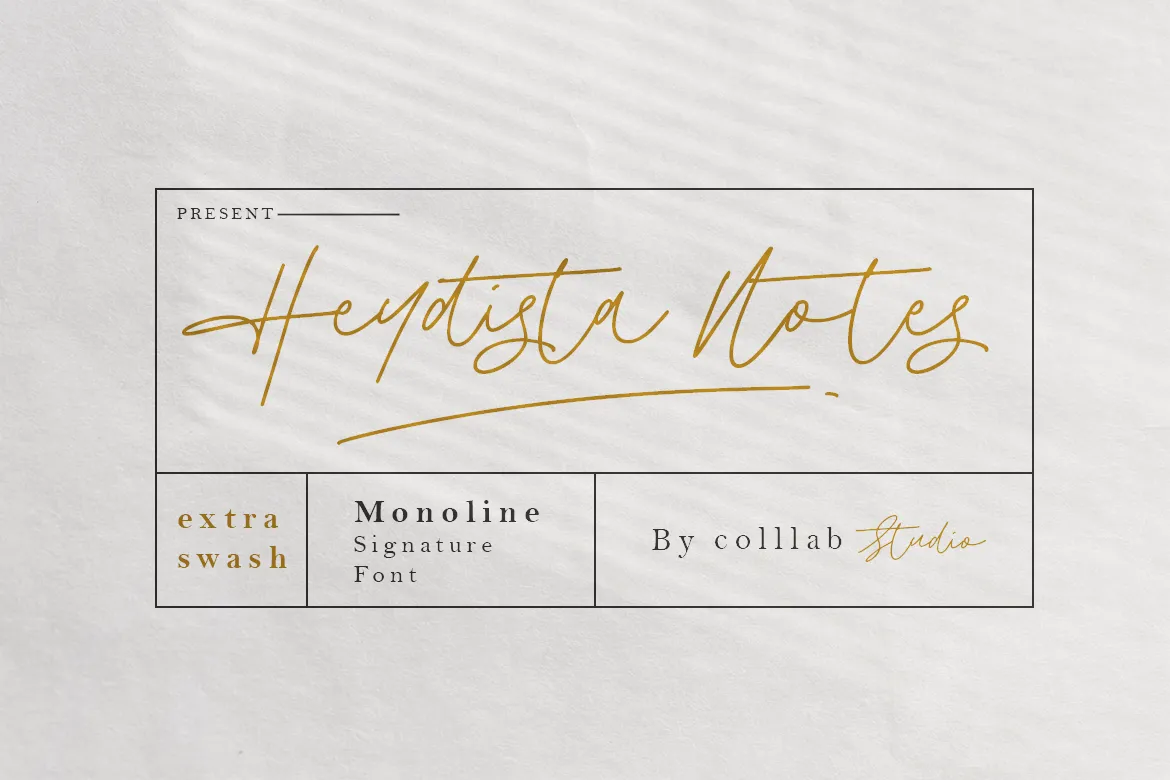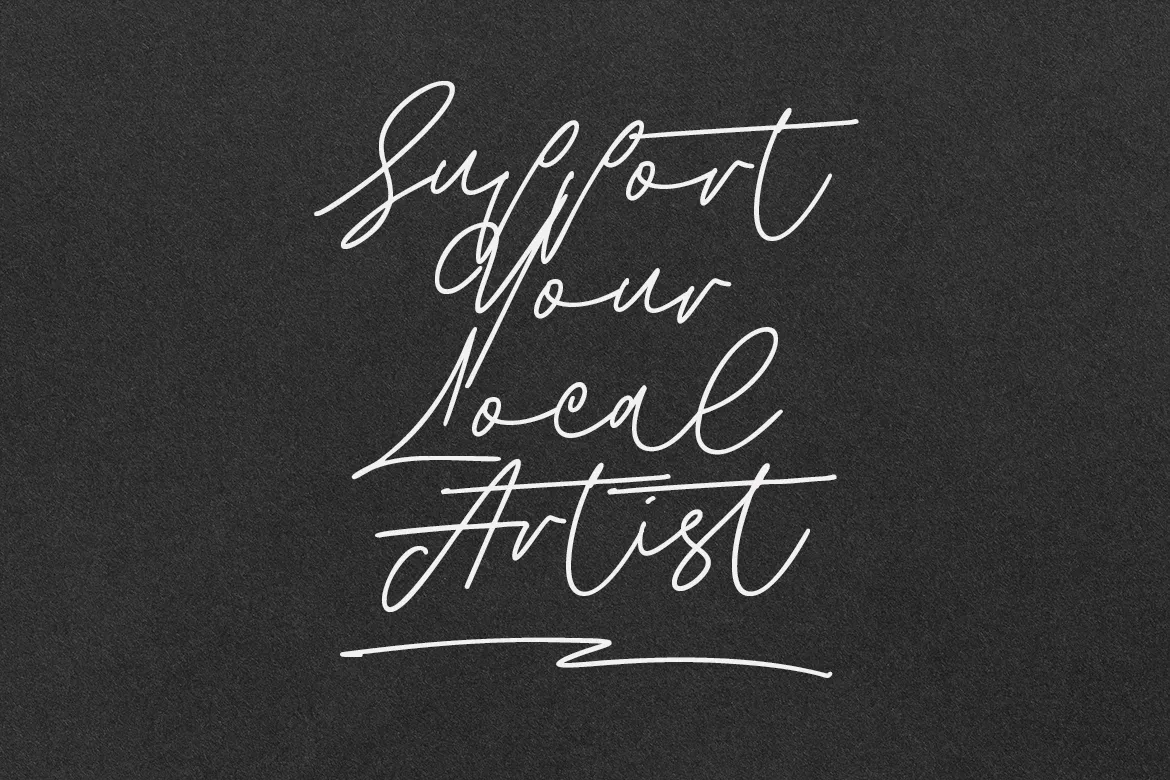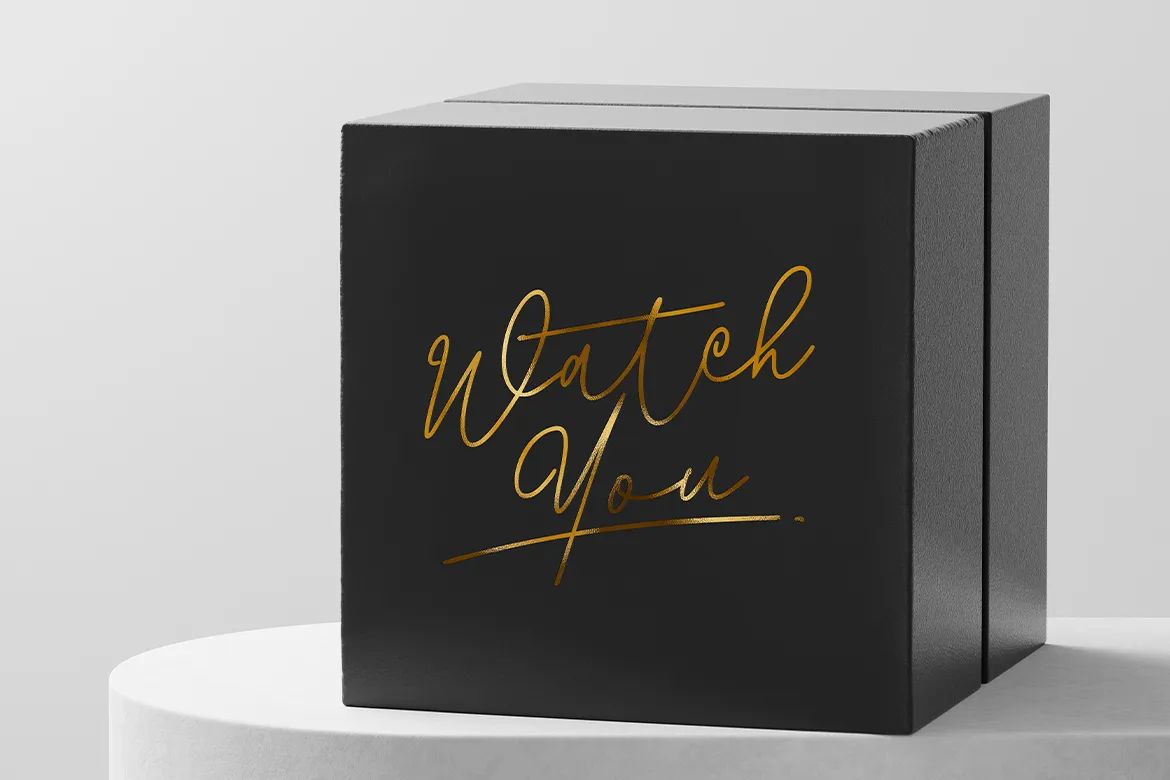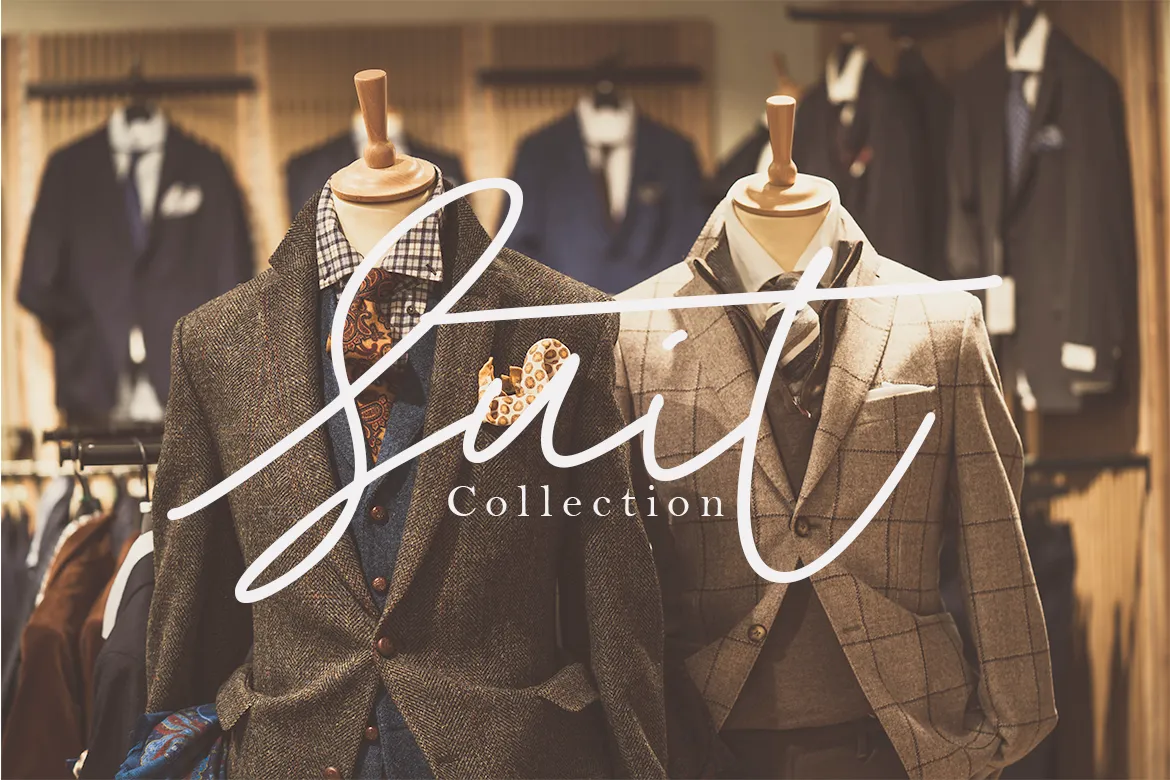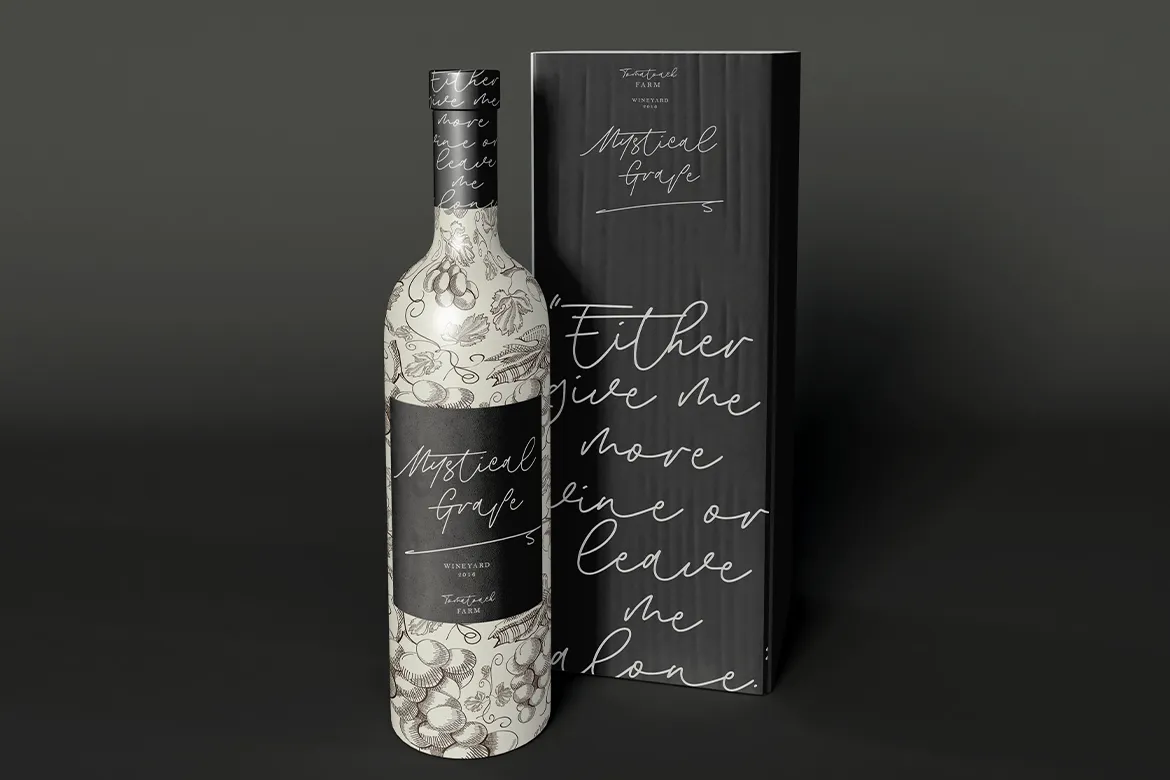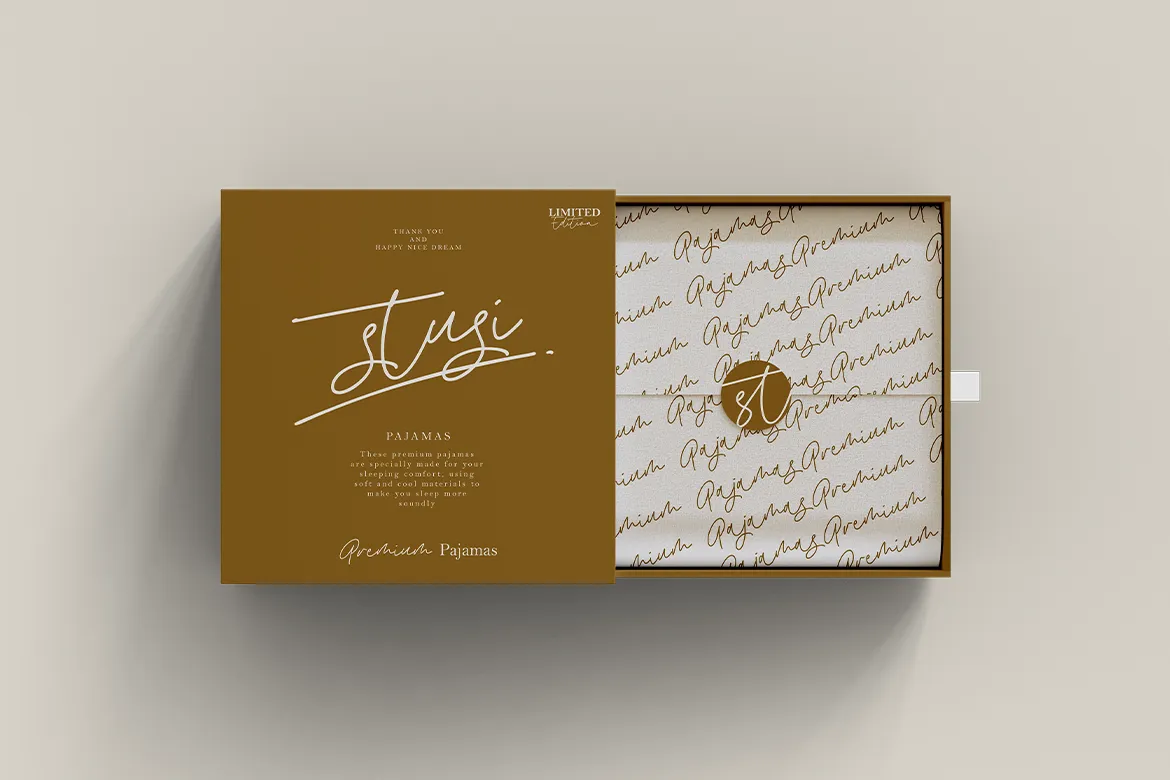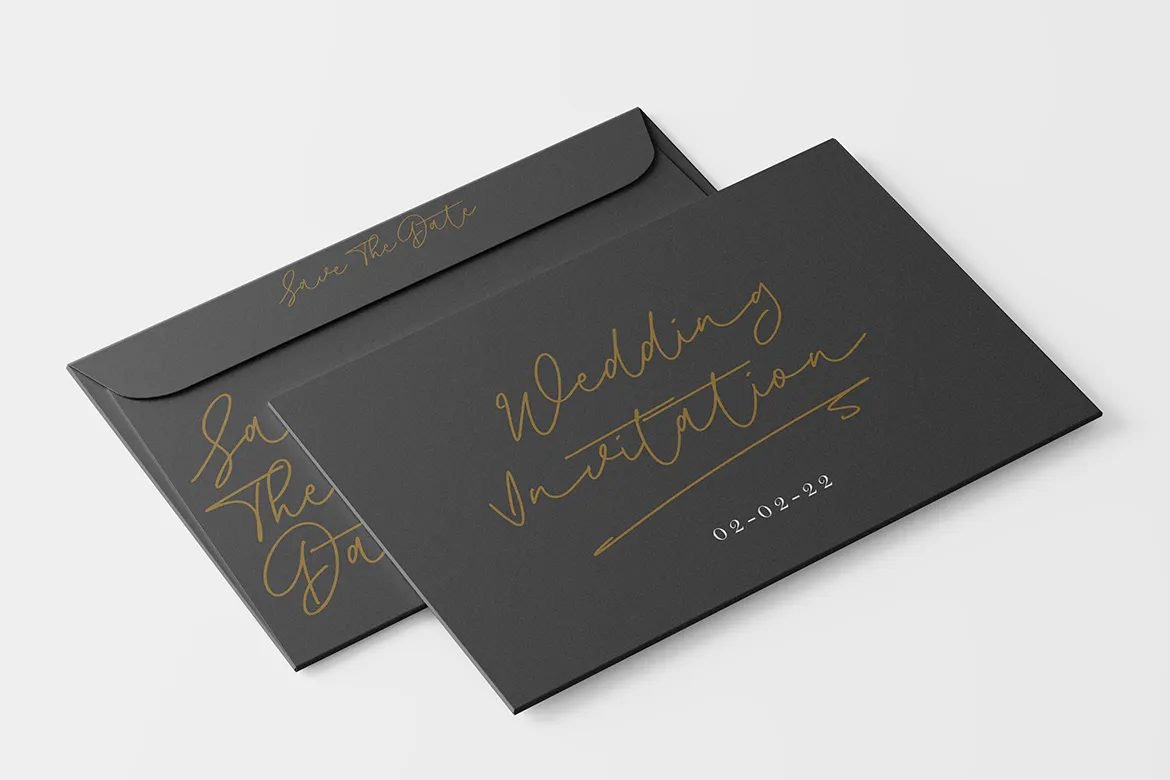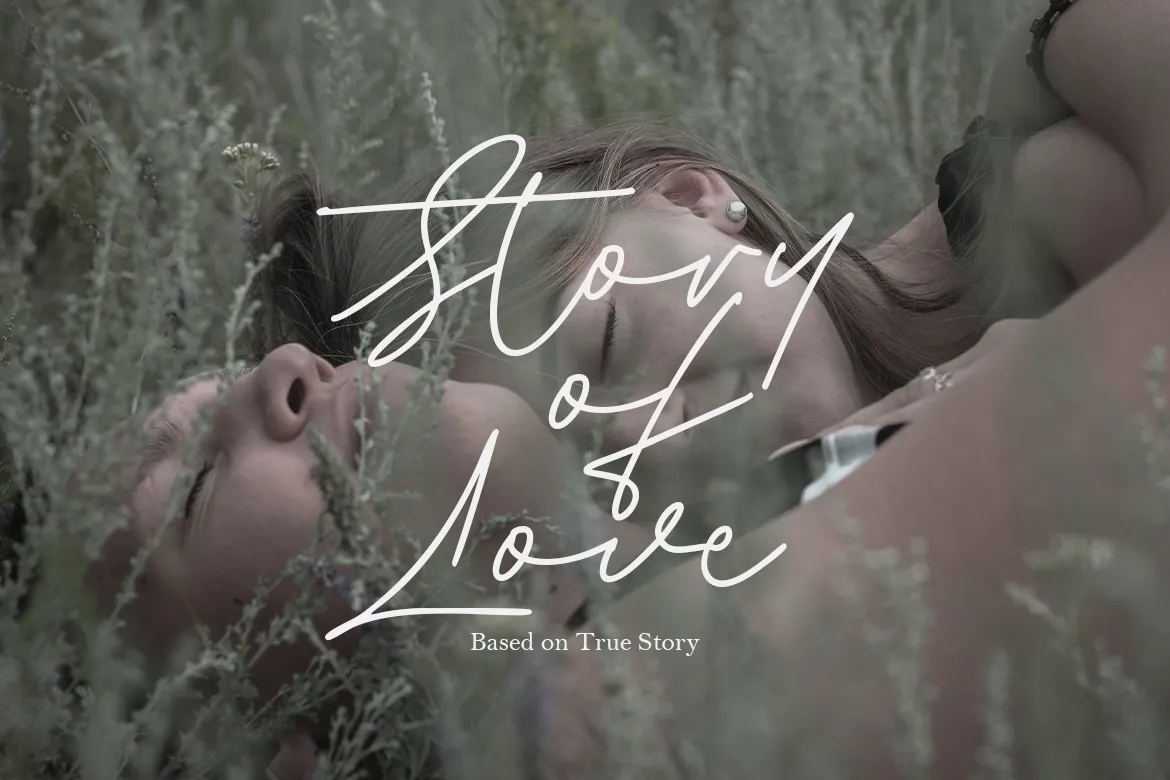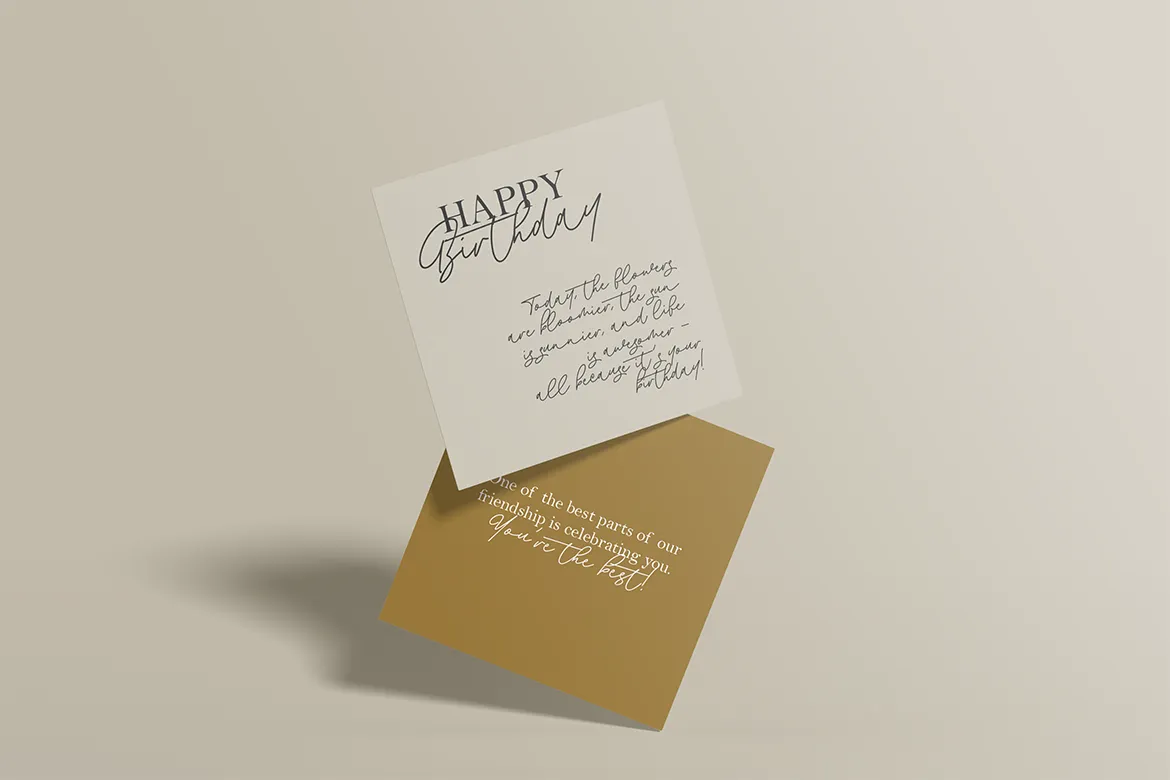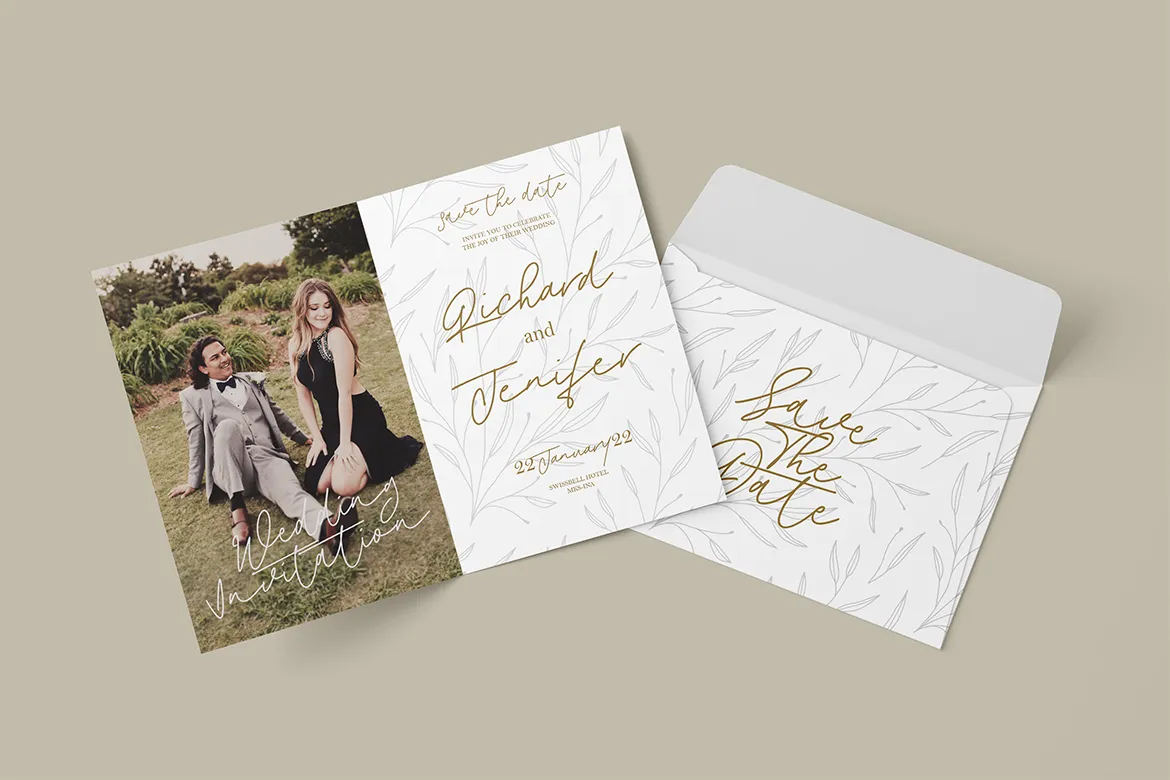
Heydista Notes is a traditional hand-written monoline signature font with clean, geometric outlines. This makes it the perfect choice for high-end branding or marketing materials. The font is modeled after the calligraphy of ancient Rome and Greece. It has a classic and timeless feel, but the clean lines give it a modern edge. Heydista Notes has been designed with attention to detail and with very high quality standards in mind.
It includes over 200 glyphs, stylistic alternates with beginning and ending swashes that you can use with your designs, and alternate letters for each letter of the alphabet so you can create unique-looking words and phrases with ease.
Whether you’re looking for a classic feel or something more modern, Heydista Notes will elevate your designs to the next level.